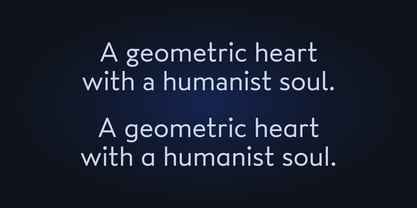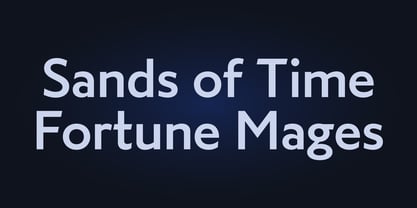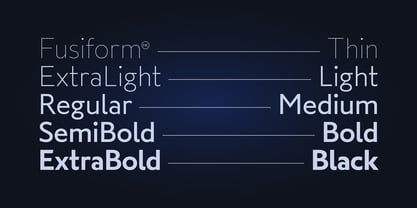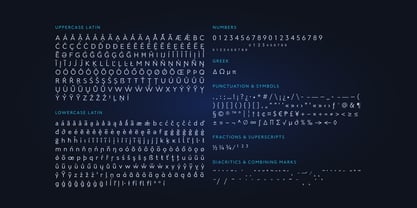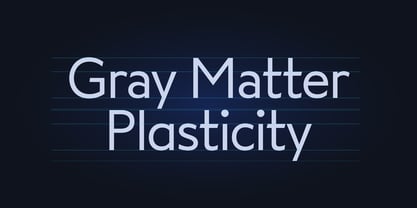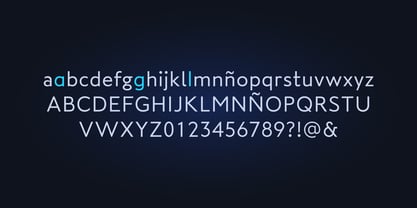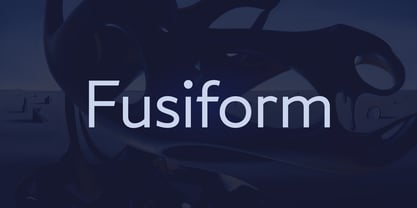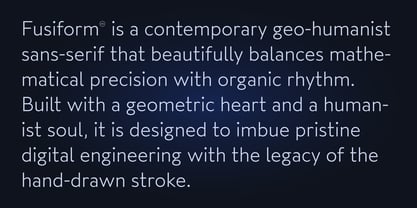
Fusiform
by Hanken Design Co.
The Fusiform Font Family was designed by Alfredo Marco Pradil and published by Hanken Design Co.. Fusiform contains 18 styles and family package options.
Fusiform is a contemporary humanist-geometric sans-serif that beautifully balances mathematical precision with organic rhythm. It is designed to bridge the gap between pristine digital engineering and the legacy of the hand-drawn stroke. By blending humanist and geometric styles, it attempts to solve the "coldness" problem inherent in modern digital design.
Designers: Alfredo Marco Pradil
Publisher: Hanken Design Co.
Foundry: Hanken Design Co.
Design Owner: Hanken Design Co.